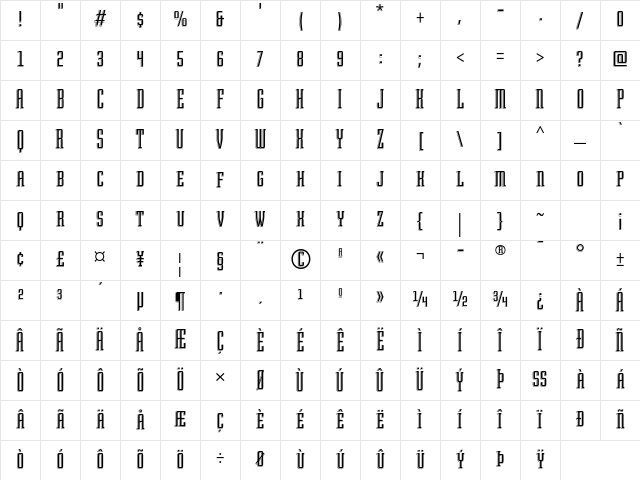
Complete Arecibo Too ITC Std Regular glyph index. Displaying only characters natively supported by Arecibo Too ITC Std Regular font.
Arecibo Too ITC Std is a composed and adaptable typeface that performs quietly and consistently across a wide range of design contexts.